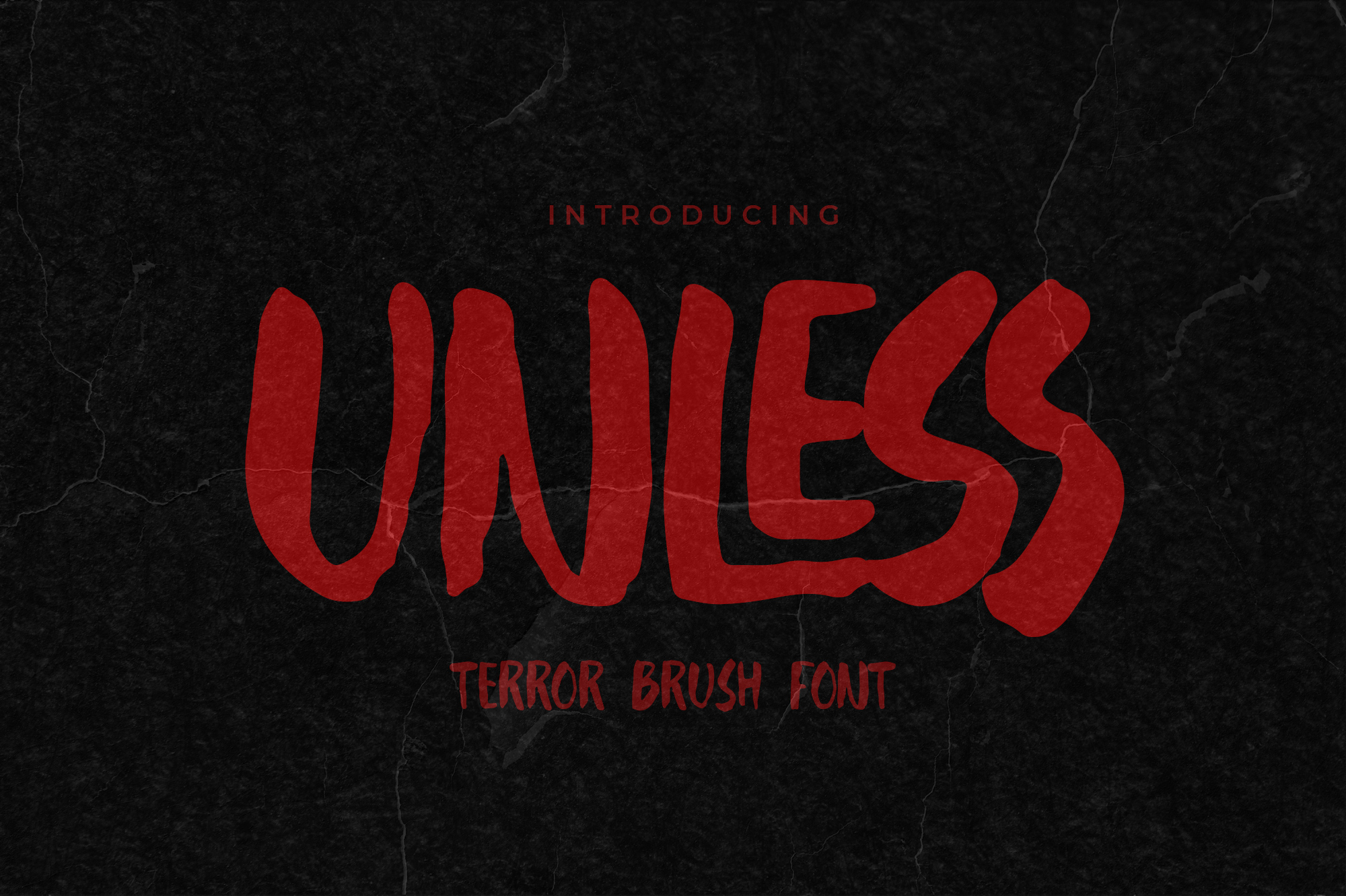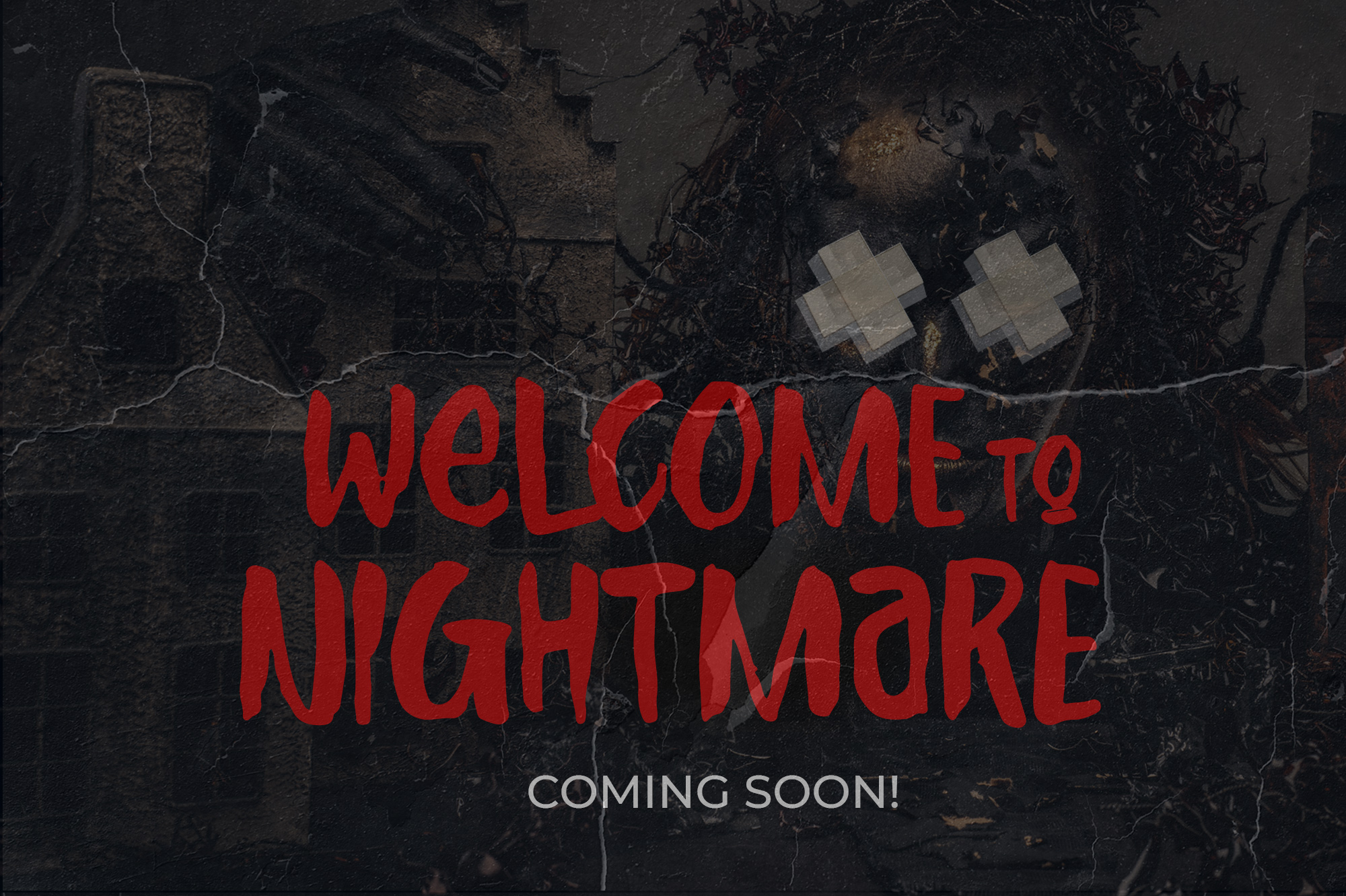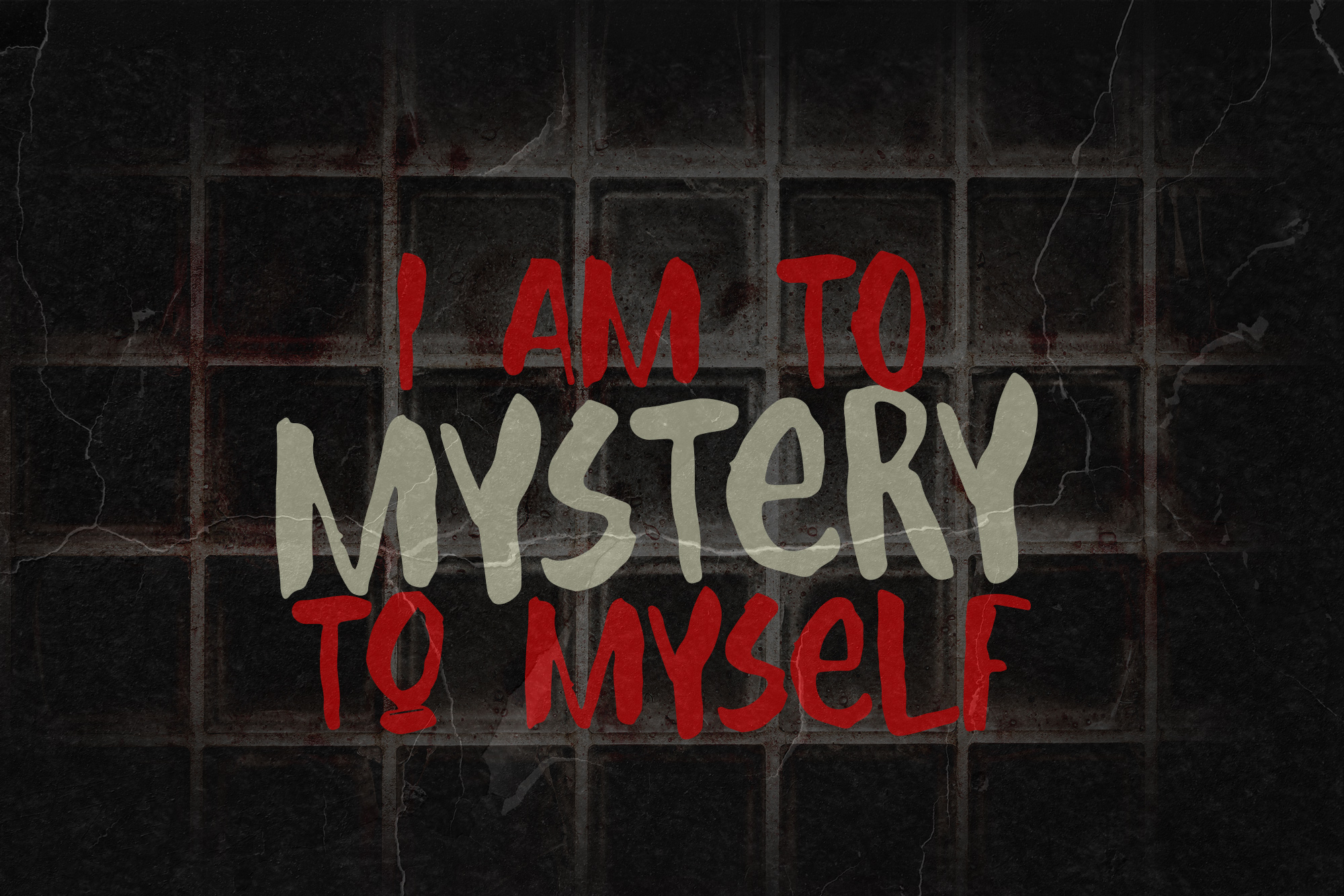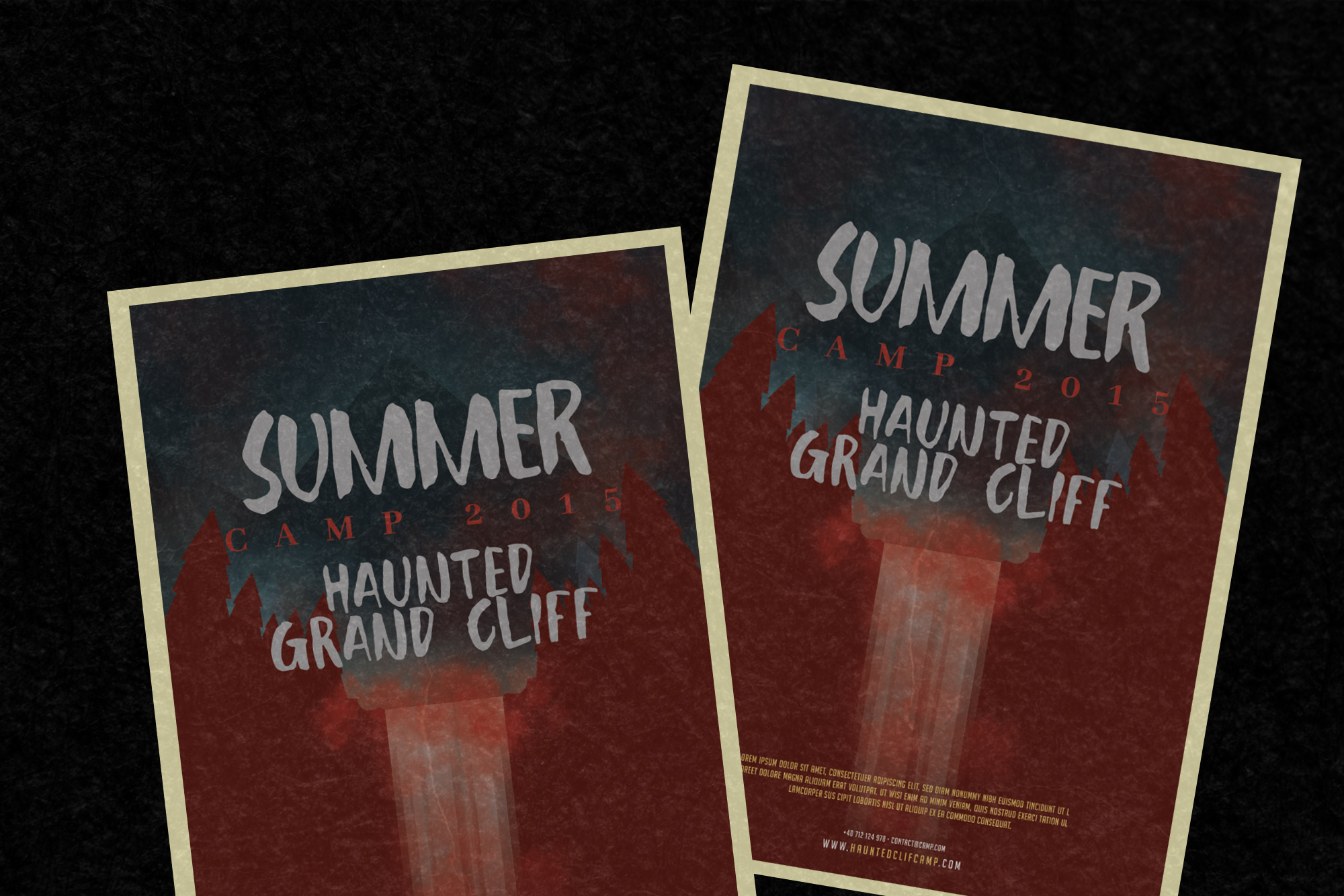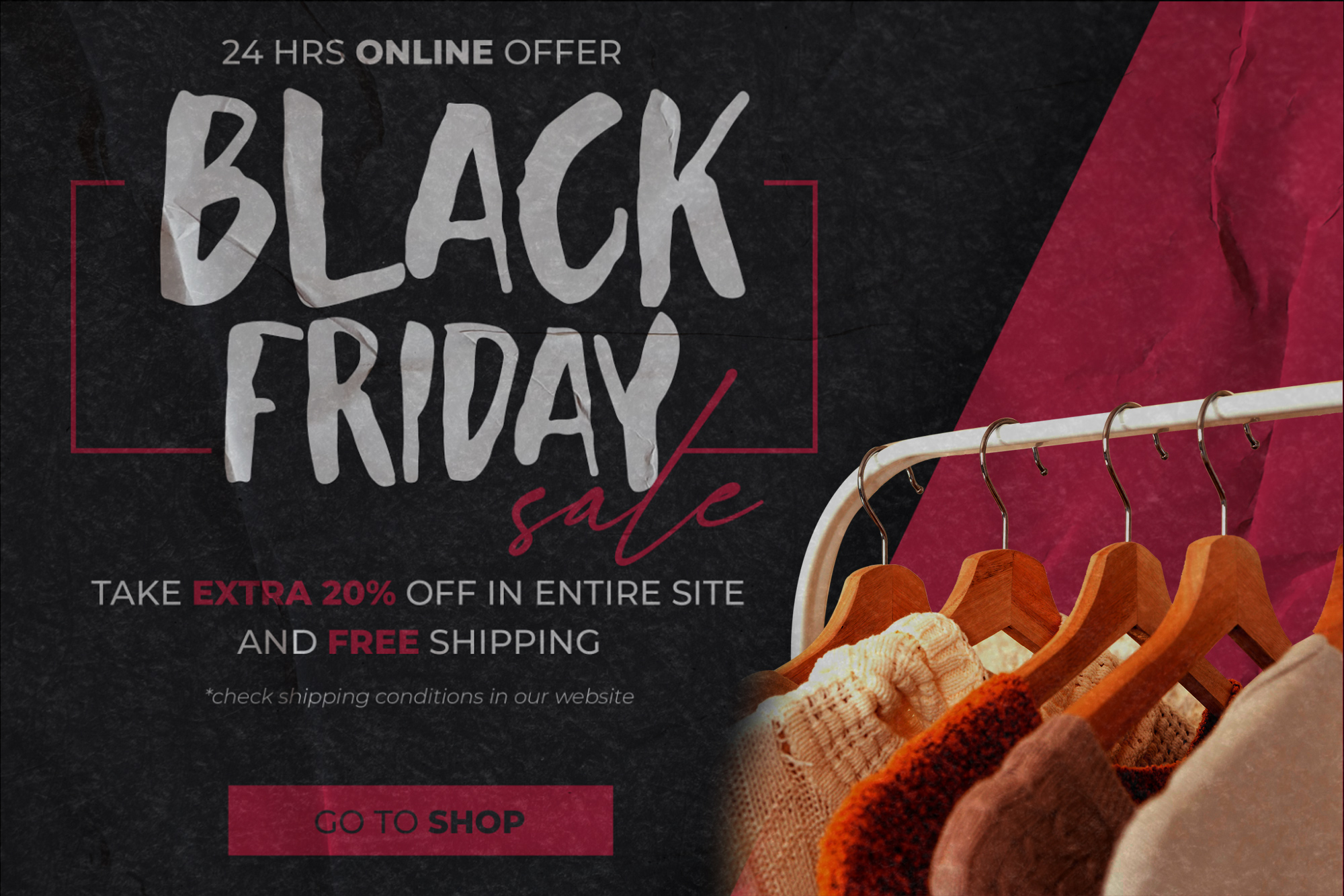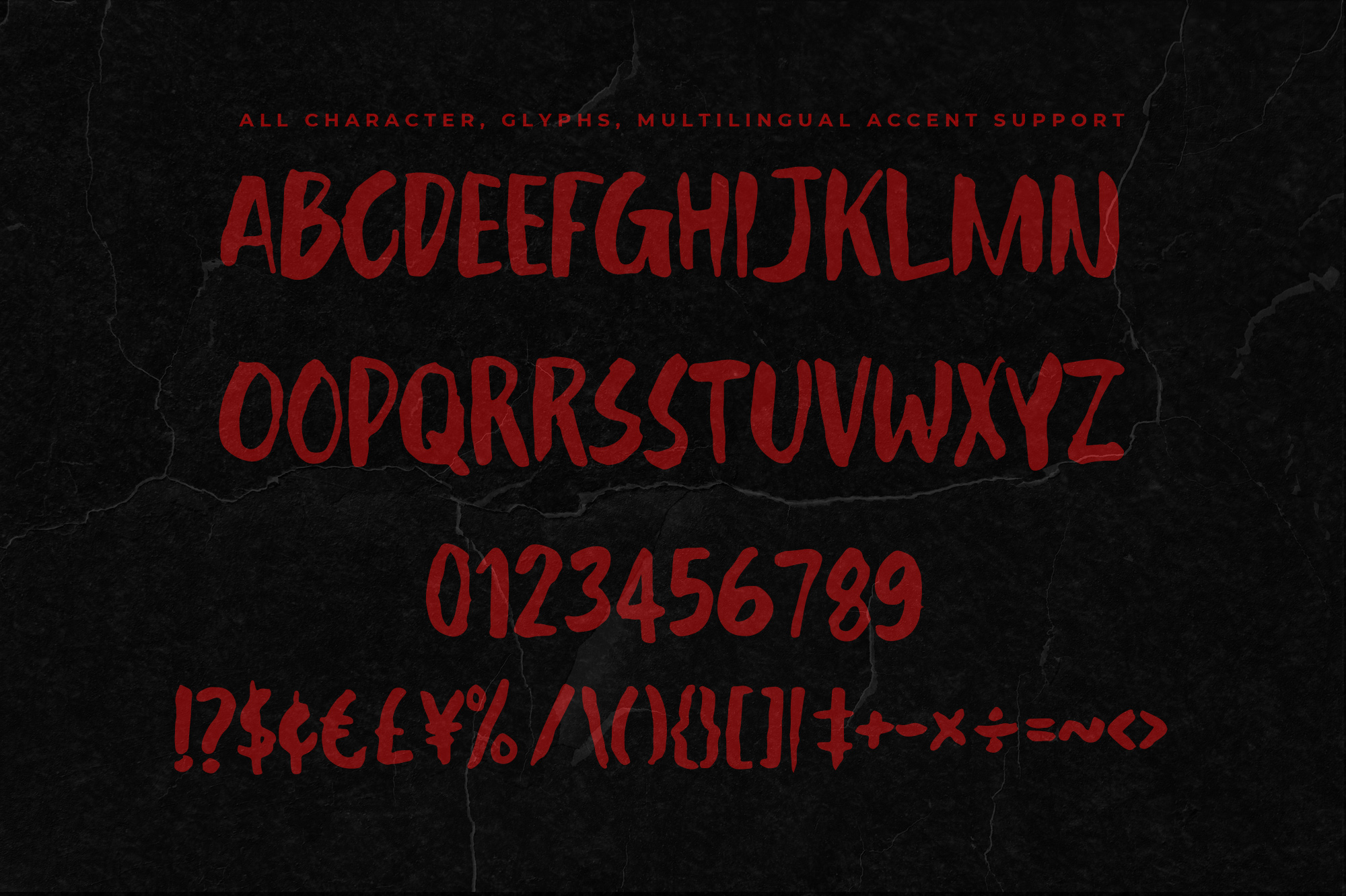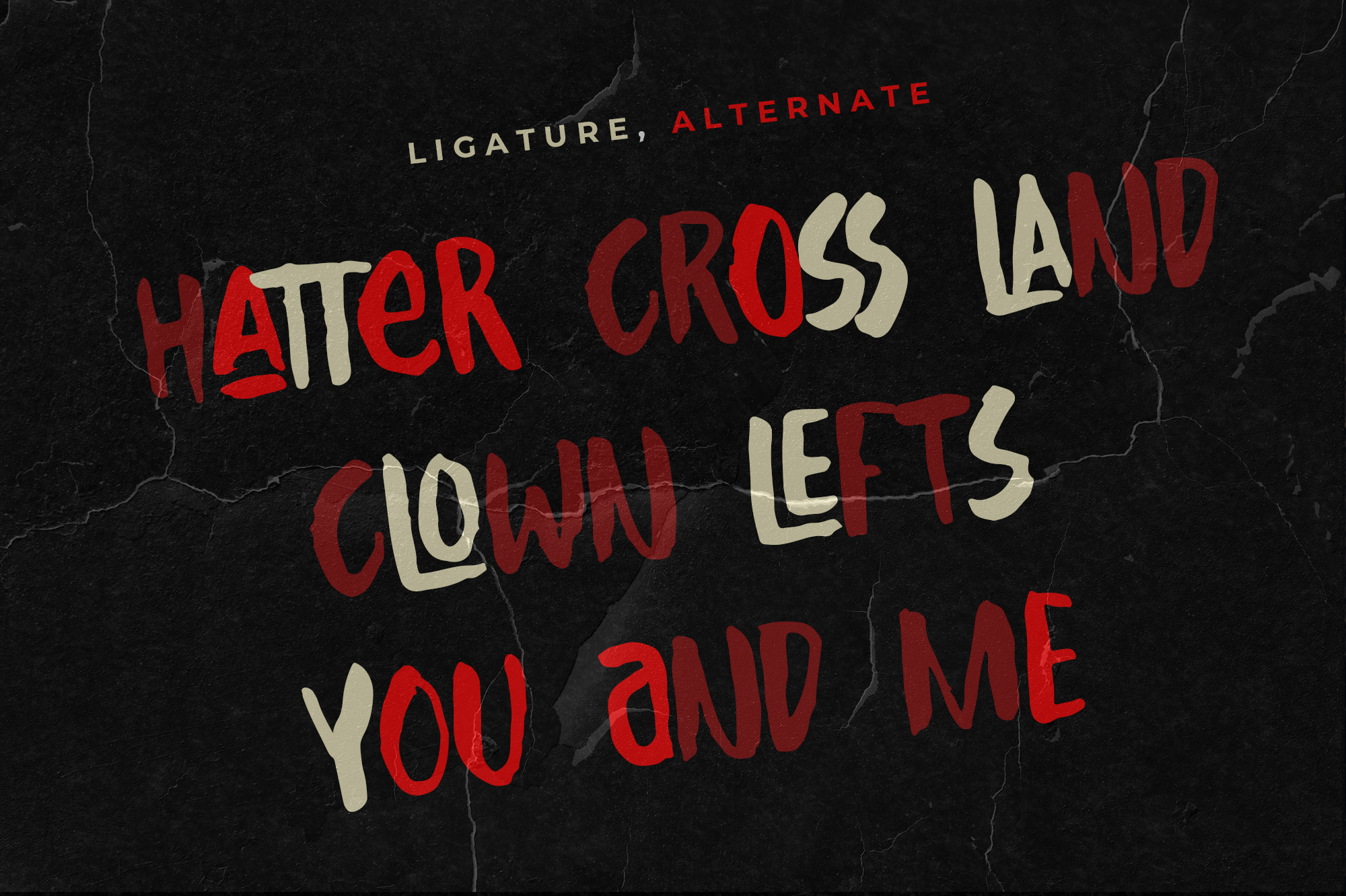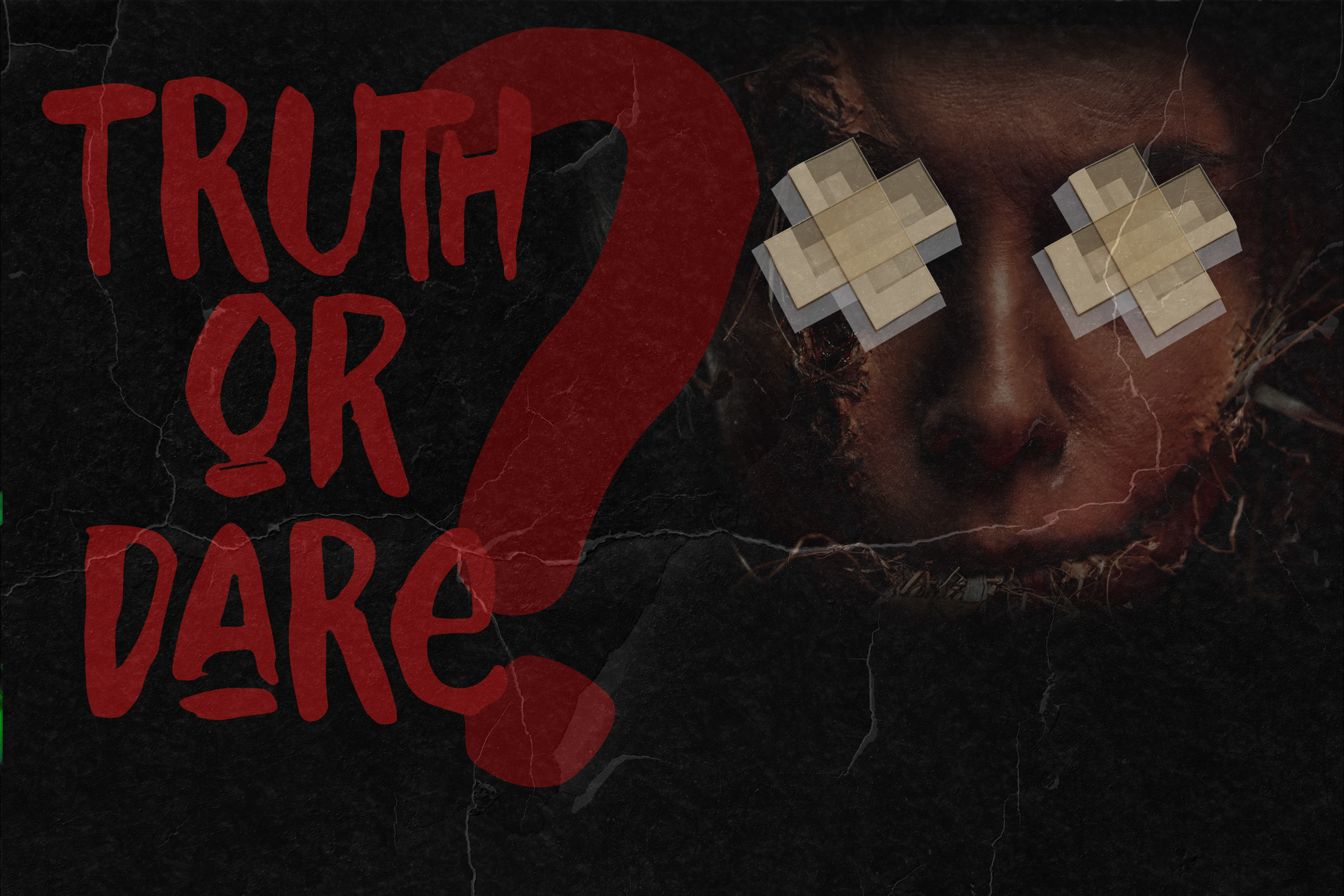
UNLESS – Rough Terror Brush Font is an Modern brush Font that is written casually and quickly.
That is why UNLESS has a horror, and strong characteristic more natural look.
You can activate Ligatures and Alternate glyphs OpenType panel.
UNLESS Perfect for designs, branding projects, Logo design,Quotes product packaging and another Project that require cool strong brush font.
- Alternate glyphs